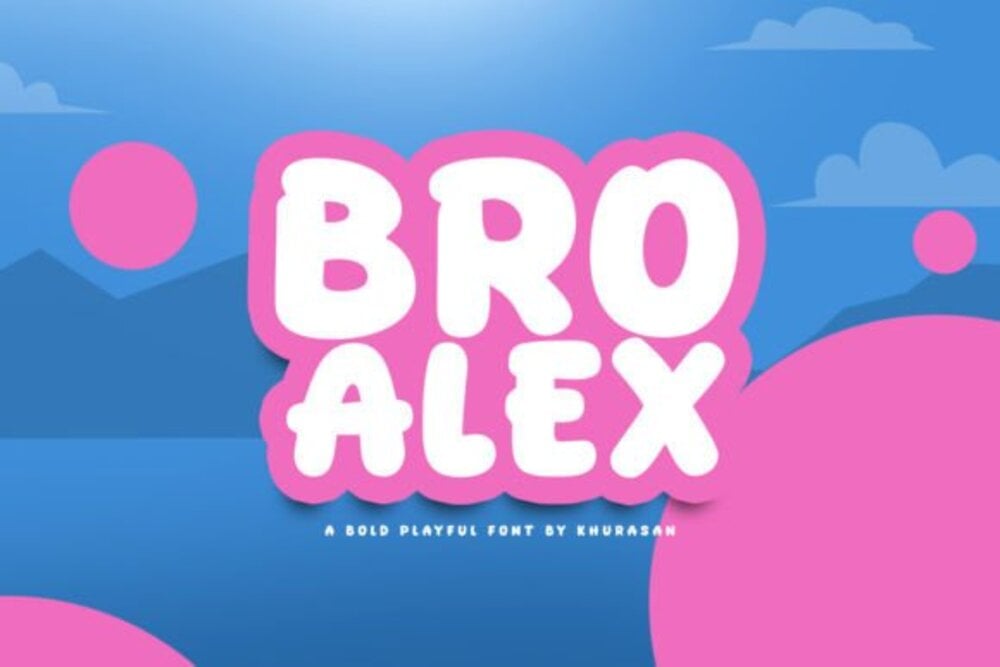
Bro Alex Font
Bro Alex font is a bold and versatile typeface that exudes a modern, urban vibe. With clean, geometric lines and a hint of playful character, it’s perfect for headlines, logos, and branding. Its well-balanced design ensures readability while maintaining a unique edge, making it ideal for both digital and print projects. Bro Alex adds personality and sophistication to any creative endeavor.